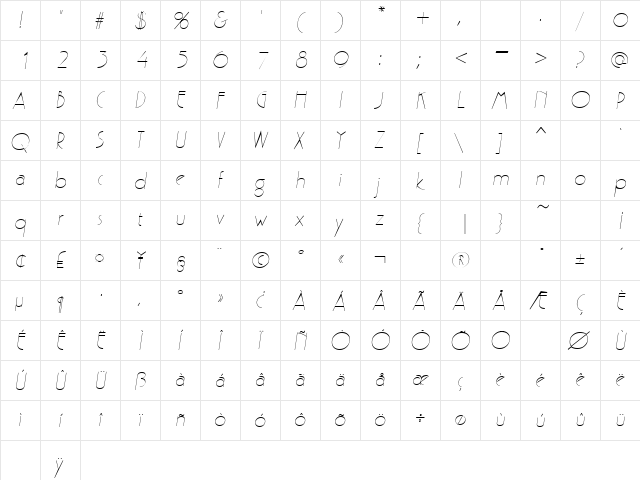
Parisian SF Italic
Design Context for Parisian SF Typeface
Parisian SF offers clean, dependable letterforms without strong stylistic allegiance, making it a practical choice for designers who need flexibility. The slanted form adds forward momentum and visual energy.
Pro Tip: Try Parisian SF for annotation and caption copy alongside an upright companion — the contrast in angle creates a dynamic but ordered typographic system.